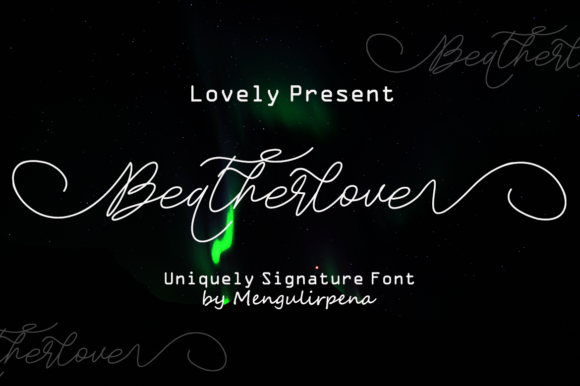
Introduction to Beatherlove Font
Beatherlove feels equally charming and elegant.
This stunning script font is a stylish homage to classic calligraphy It features a varying baseline, smooth lines, gorgeous glyphs and stunning alternates.